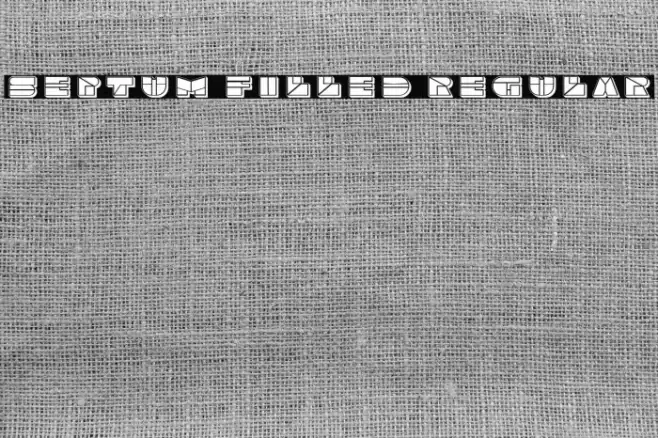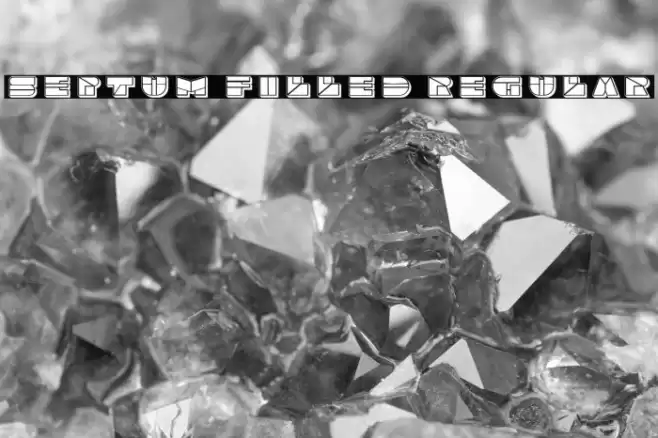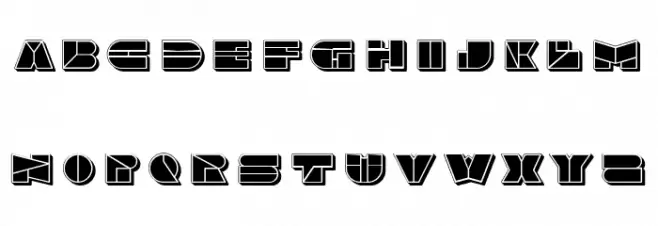
Septum Filled Regular Font
Septum Filled Regular Description
This font features a bold and geometric design with a distinct filled style. Each character is constructed with thick lines and a unique pattern that includes horizontal and vertical divisions, creating a segmented appearance. The font has a strong visual impact, making it ideal for attention-grabbing designs. The uppercase letters are particularly striking, with consistent line thickness and a modern, industrial feel. The overall look is both futuristic and retro, combining elements of classic typography with a contemporary twist.
A bold, geometric font with a segmented, filled design from Uncategorized fonts.
- Proposed Projects: Ideal for posters, logos, and branding projects that require a strong visual presence.